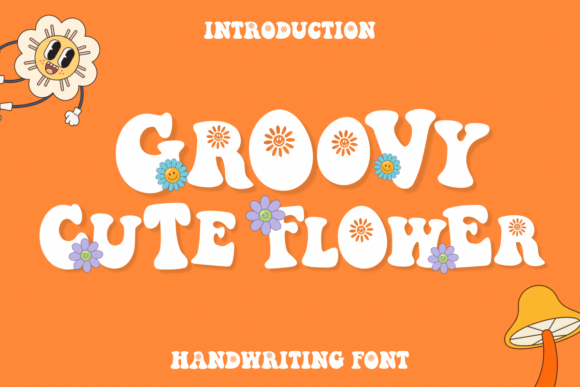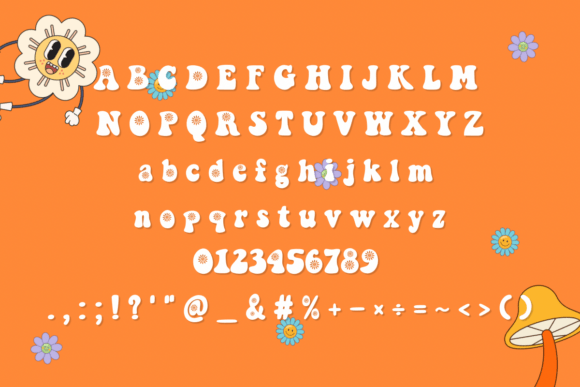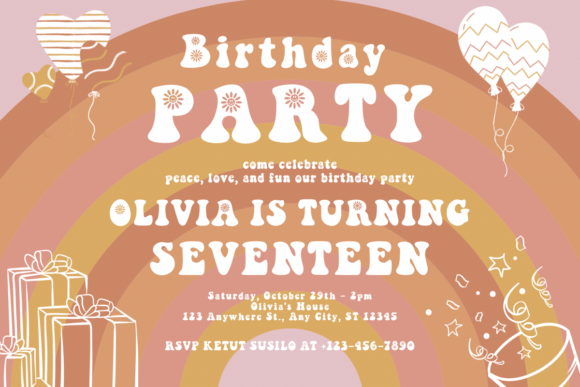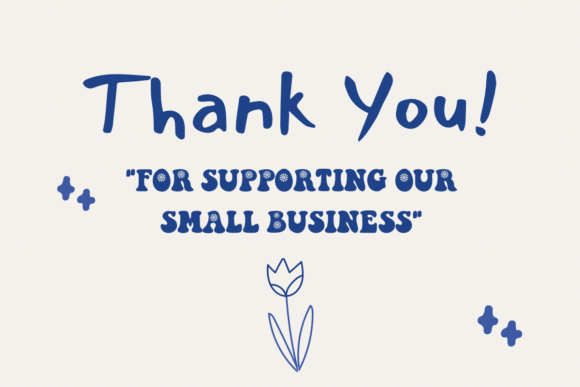
Groovy Cute Flower Font
About the Groovy Cute Flower Font
Let us introduce you to Groovy Cute Flower Font, where timeless design meets modern craftsmanship. Groovy Cute Flower
is a delightful retro-inspired handwriting font that bursts with flower power and feel-good vibes. Its bouncy letters and floral embellishments channel the charm of the 60s and 70s, making it perfect for kids’ designs, vintage projects, festival posters, and cute apparel graphics. Funky, fun, and full of peace & love!
Groovy Cute Flower Font’s playful energy makes it ideal for projects needing a touch of retro charm and youthful exuberance. It shines in headlines, short slogans, logos for children’s products, and packaging design for sweet treats or quirky gifts. Avoid using it for large blocks of text or UI elements; its decorative nature compromises readability in such contexts.
Pairing it with a clean sans-serif like Open Sans for body copy creates a balanced and approachable aesthetic. For a more vintage feel, consider a classic serif font like Garamond. Alternatively, a simple geometric sans-serif can offer a modern contrast, enhancing the font’s retro appeal without overwhelming it.
The font’s overall personality is best described as cheerful and whimsical, radiating a sense of fun and nostalgia. It’s a great choice for brands focused on happiness, creativity, and a connection to the past, but lacks the sophistication for more serious or corporate applications.
Groovy Cute Flower Font Usage Examples
Groovy Cute Flower Font Example